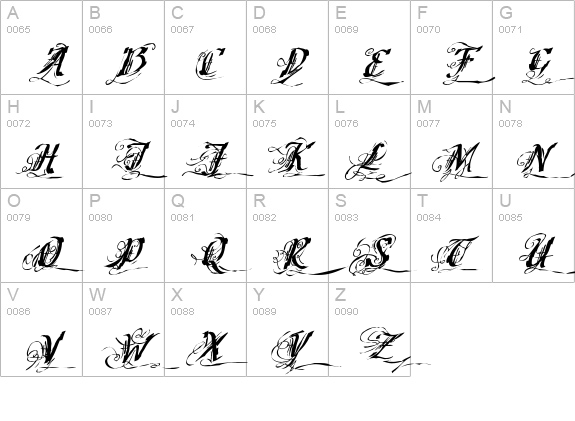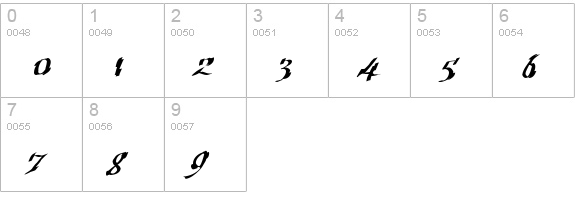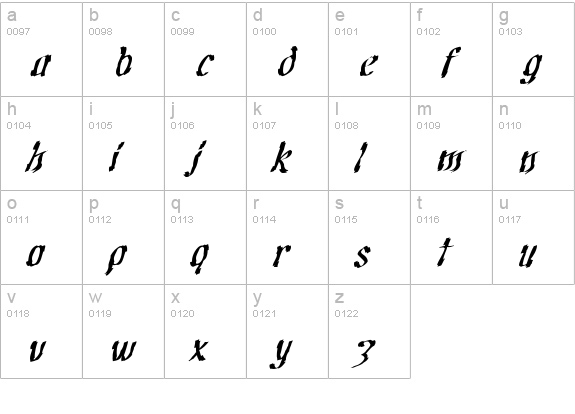
Cretino Gaunt Font Details
Cretino Gaunt is a captivating and elegant font that brings a touch of sophistication to any design project. With its slender and stylish letterforms, this typeface exudes a sense of modernity and class. The sleek lines and intricate details of Cretino Gaunt make it a perfect choice for branding, editorial design, and more. What sets Cretino Gaunt apart is not only its striking appearance but also the fact that it is available for free download at FontsMarket.com. This means that you can easily access this exquisite font to elevate your creative projects without any cost. Don't miss the opportunity to add Cretino Gaunt to your font collection and bring a touch of refinement to your designs.